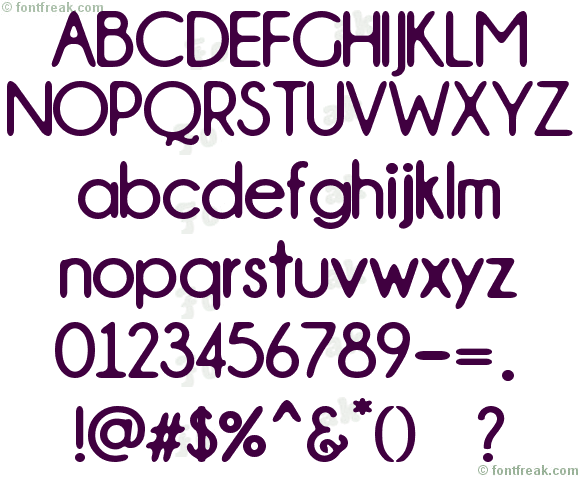
Hotel Oriental
The Hotel Oriental font by woodcutter Manero is a striking display typeface that embodies a unique blend of elegance and cultural flair. This font is characterized by its bold stroke weight and a smooth, rounded finish, creating a warm and inviting appearance. The design features moderate contrast, allowing for easy readability while maintaining a decorative essence that makes it visually appealing. The spacing is well-balanced, giving each letter ample room to breathe, which enhances overall legibility. The subtle ornamental elements evoke a sense of sophistication, making it ideal for various design contexts.
Best suited for projects that demand a touch of exotic charm, the Hotel Oriental font excels in applications such as restaurant menus, where it can elevate the dining experience with its inviting style. It is also perfect for hotel branding, helping to convey a warm and welcoming atmosphere to guests. Graphic designers can utilize this typeface in travel brochures, creating alluring visuals that capture the essence of adventure. Additionally, it lends itself beautifully to wedding invitations, setting a romantic tone for special events. Small business owners looking to establish a unique identity for their brand will find this font an excellent choice, as it combines creativity with professionalism.
The target audience for the Hotel Oriental font includes graphic designers, small business owners, and content creators who seek to add a distinctive flair to their projects. Its versatility and engaging visual characteristics make it a standout option in the world of typography. For those seeking a captivating typeface that marries elegance with cultural resonance, the Hotel Oriental font free download offers an opportunity to enhance your design work with a touch of sophistication.